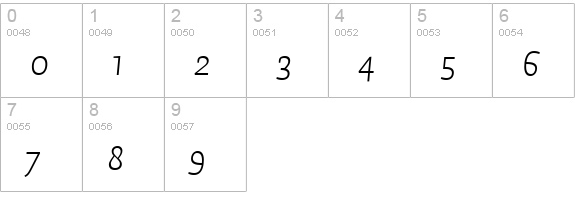
Auto 2 Light Italic Font Details
Auto 2 Light Italic is a refined, elegant, italic variant in the Auto typeface family \xE2\x80\x94 well suited to elegant body text, refined sub-headings, and luxury branding.
Introducing Auto 2 Light Italic font, a sleek and modern typeface designed to bring a touch of elegance to your projects. This font features a perfect balance of lightness and italic styling, making it ideal for adding a sophisticated flair to any design. With its clean lines and subtle curves, Auto 2 Light Italic exudes a sense of sophistication and professionalism. And the best part? Auto 2 Light Italic is available for free download at FontsMarket.com! This means you can easily access this stylish font and enhance your designs without breaking the bank. Whether you're working on a branding project, website design, or any other creative endeavor, Auto 2 Light Italic is sure to elevate your work with its timeless appeal. Don't miss out on the opportunity to add this versatile and elegant font to your collection. Download Auto 2 Light Italic today and bring a touch of refinement to your designs!